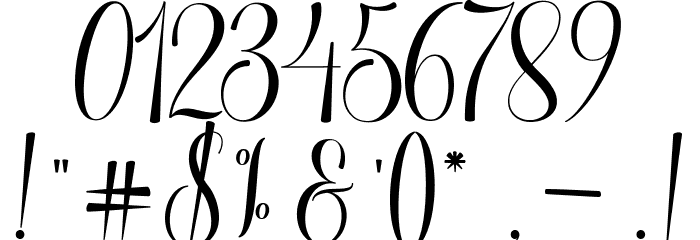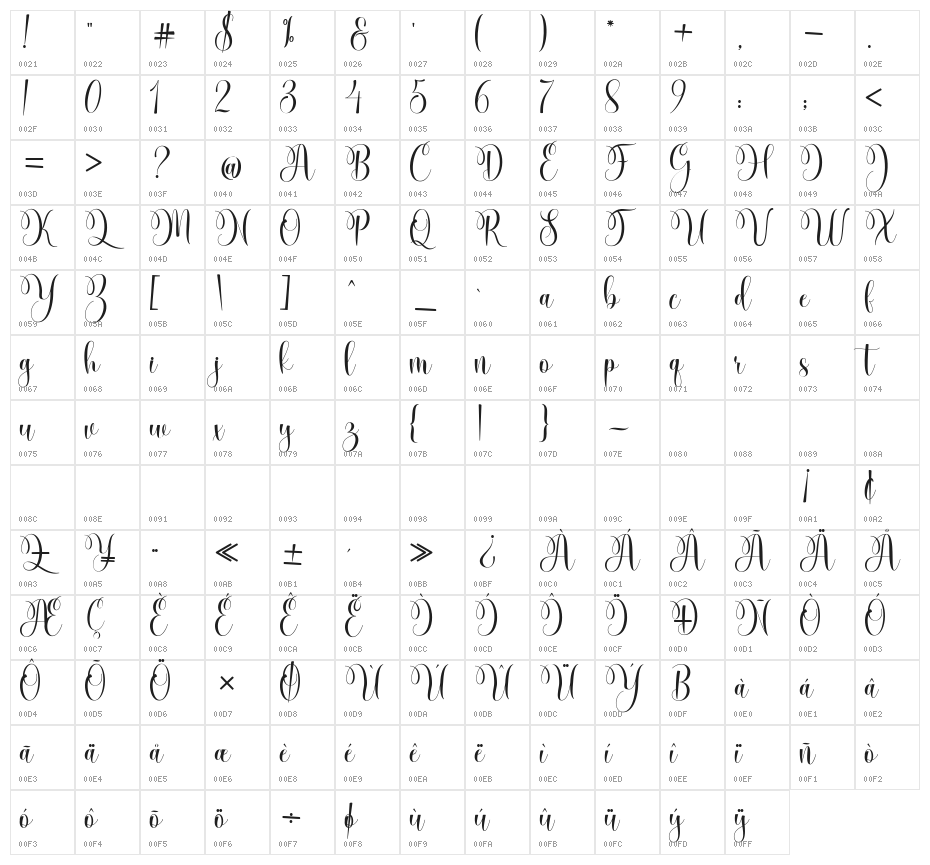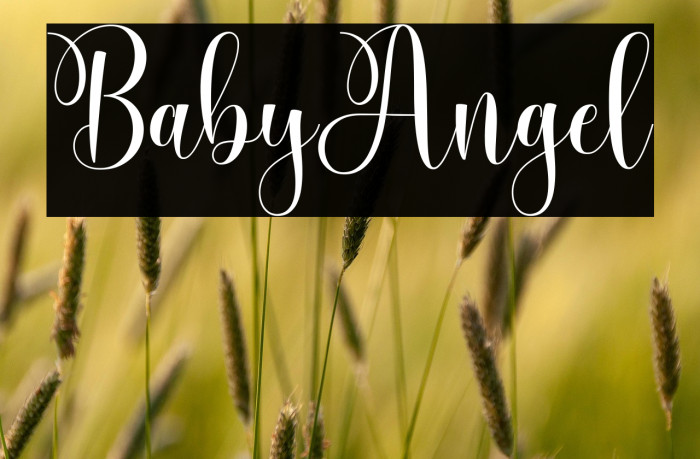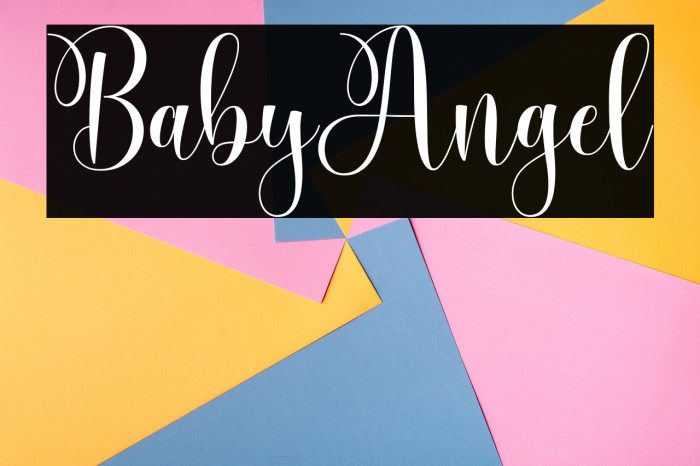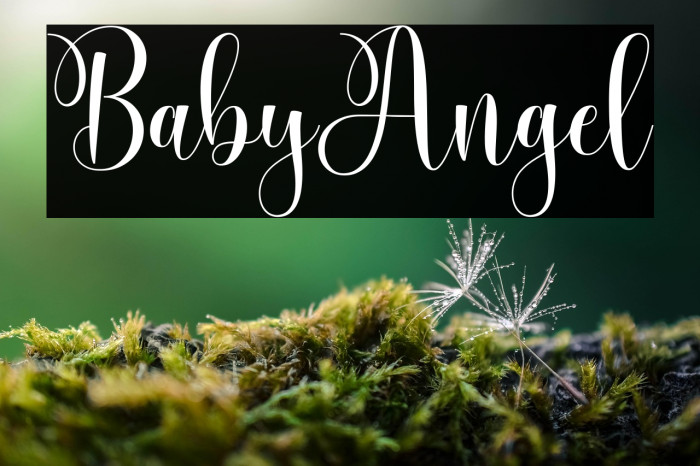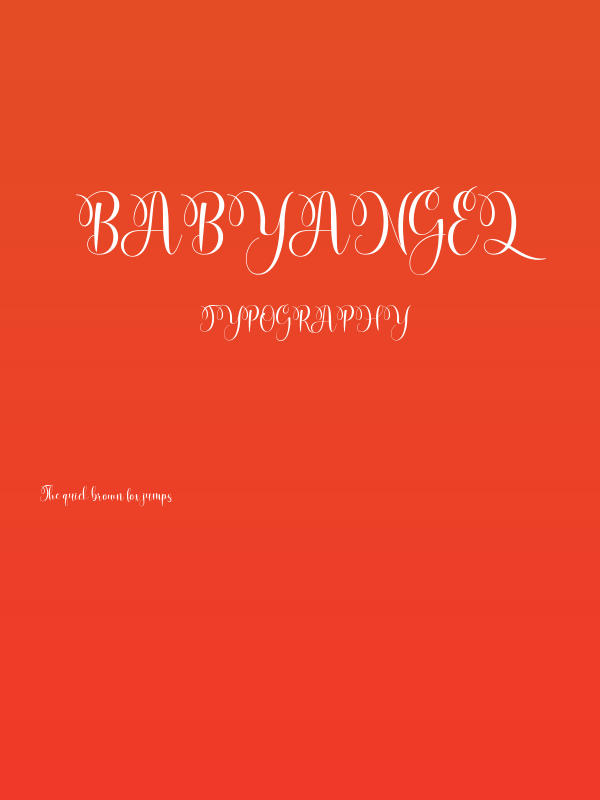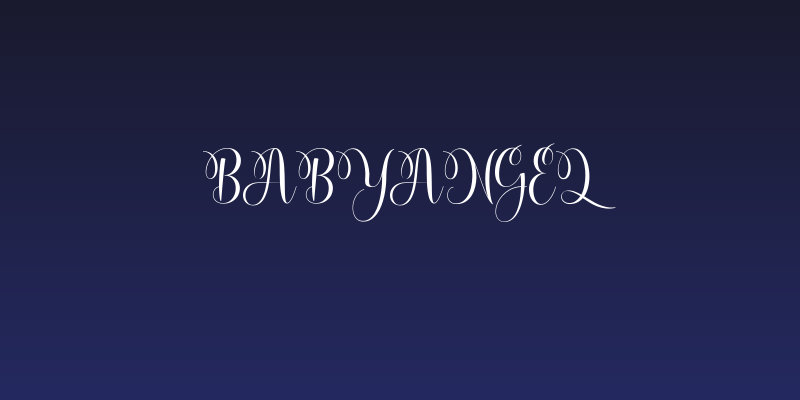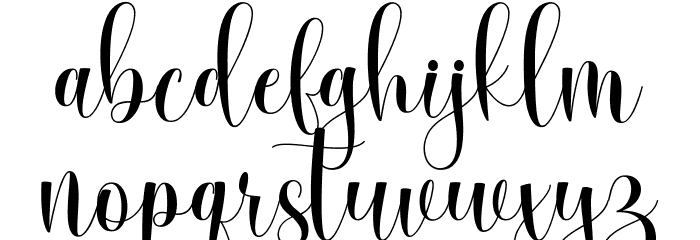
BabyAngel Font
BabyAngel Description
This elegant script font features flowing, interconnected letters with a graceful, calligraphic style. The uppercase letters are ornate with sweeping curves and loops, while the lowercase letters maintain a consistent fluidity, enhancing readability. The numerals are designed with a similar flair, ensuring they complement the overall aesthetic. Special characters are thoughtfully crafted to match the font's sophisticated style, making it suitable for a variety of decorative purposes.